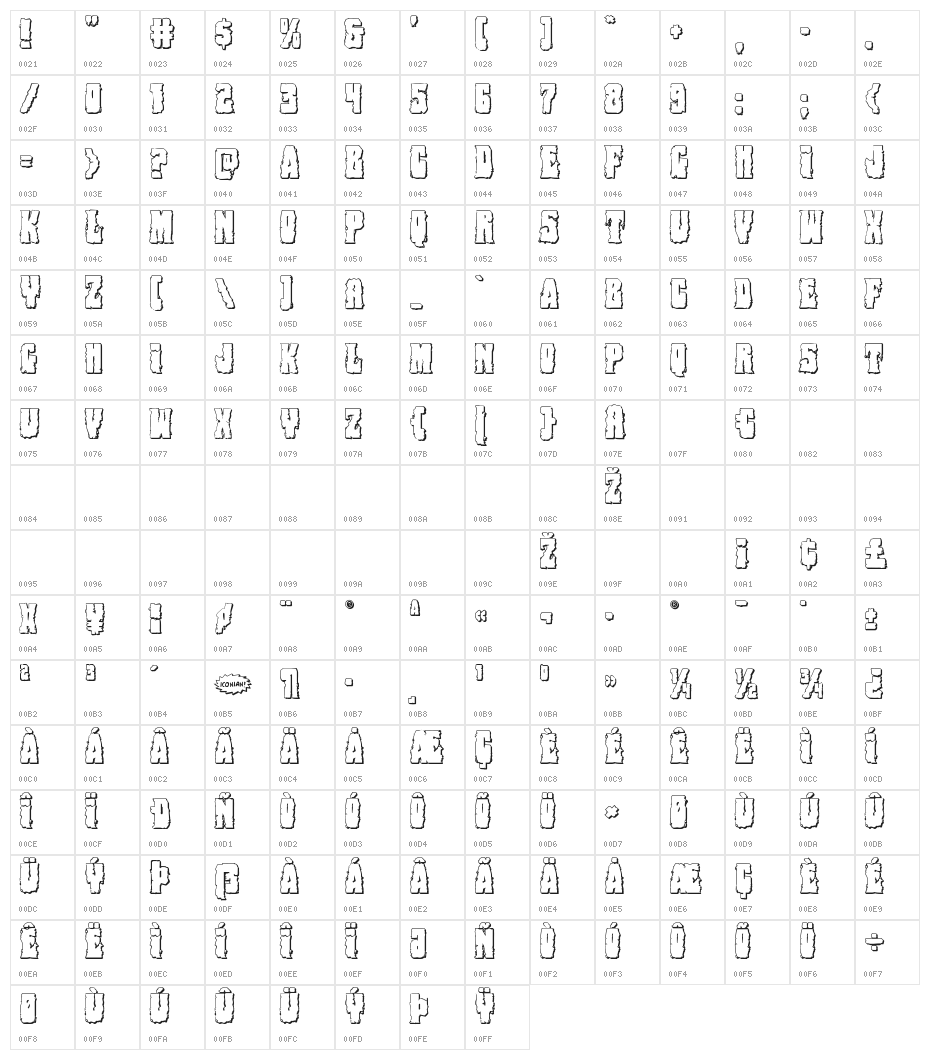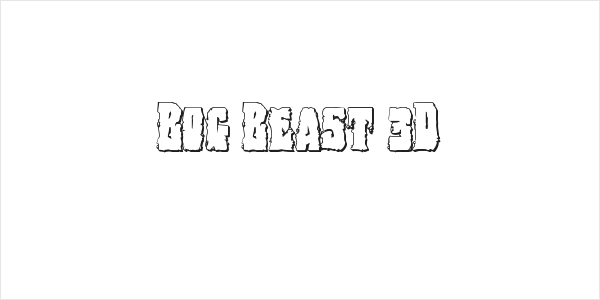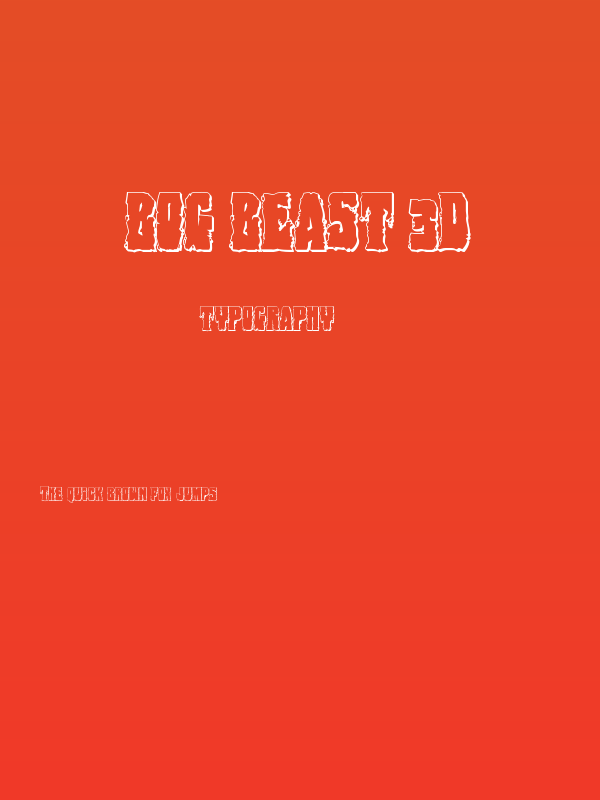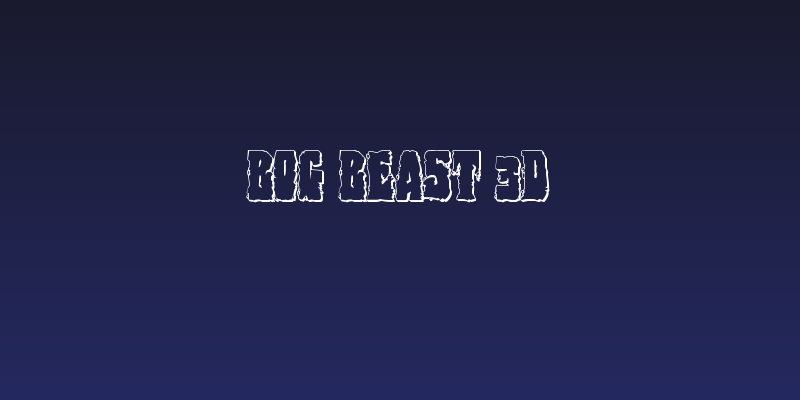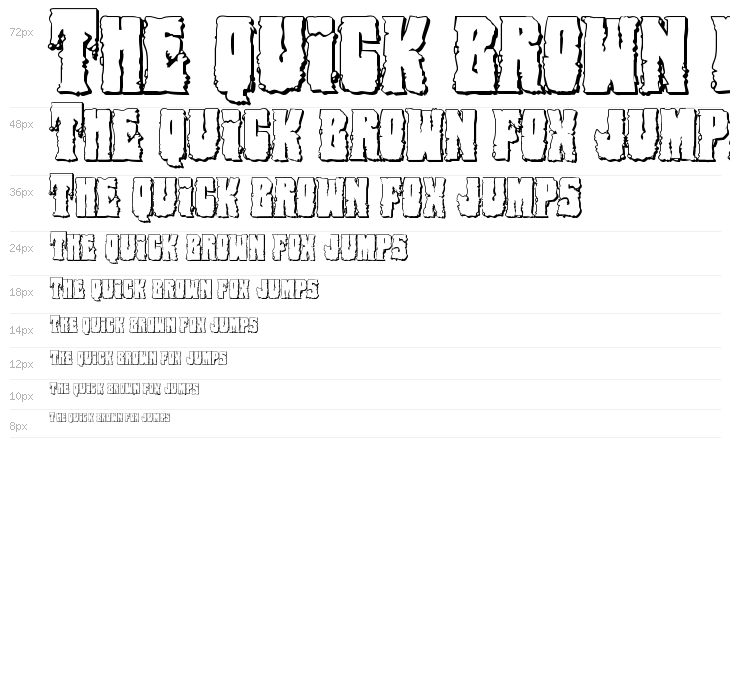
Bog Beast 3D Font
Bog Beast 3D Description
This font features a rugged, distressed appearance with a 3D effect, giving it a bold and impactful look. The characters have a rough, textured outline that suggests erosion or decay, adding a sense of depth and dimension. The uppercase and lowercase letters maintain a consistent style, with jagged edges and irregular shapes that enhance its unique and eye-catching design. The numerals and special characters follow the same aesthetic, making it suitable for projects that require a dramatic and unconventional typeface.
| Proposed Projects | Ideal for horror-themed posters, Halloween invitations, video game titles, or any project needing a dramatic and edgy typeface. |